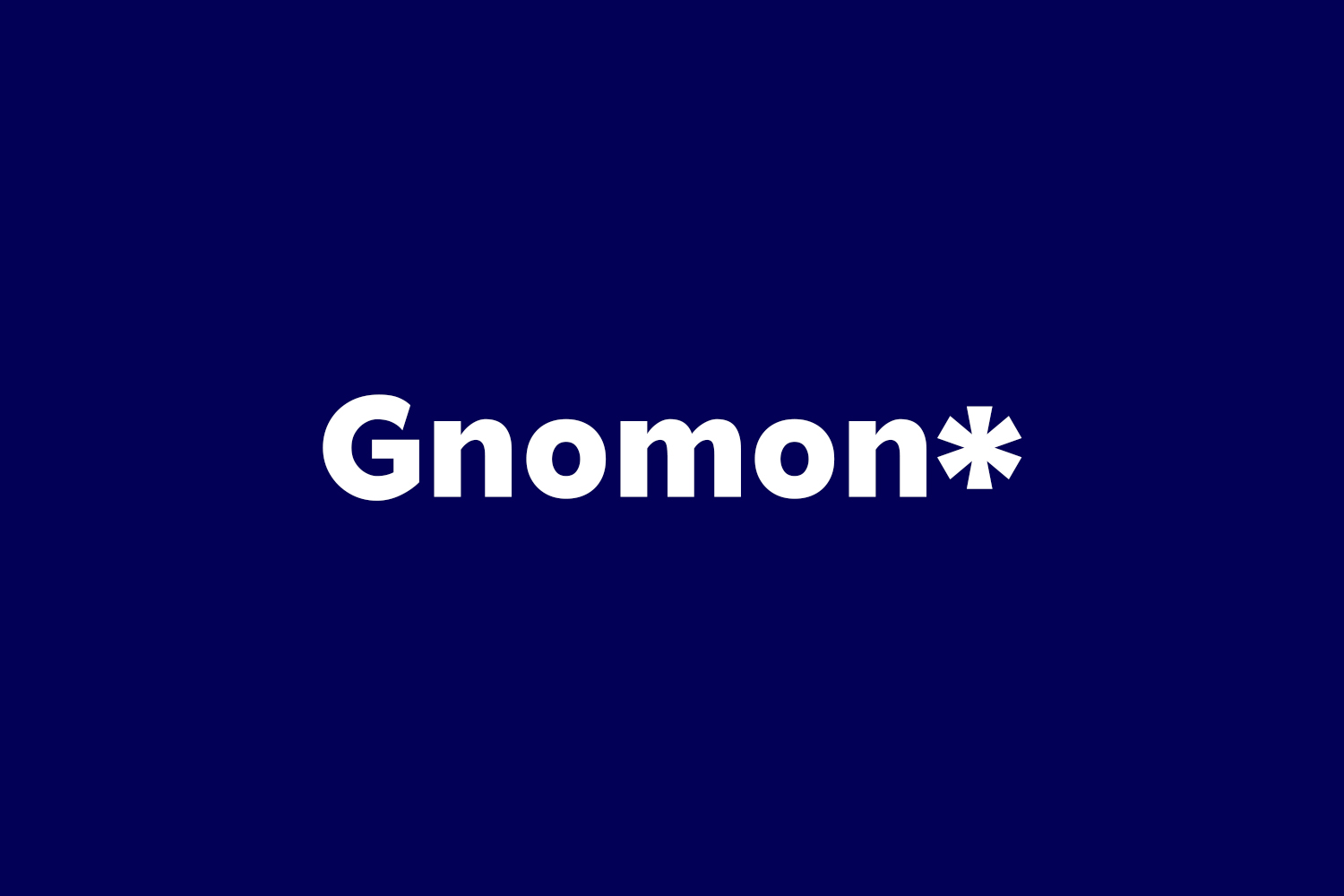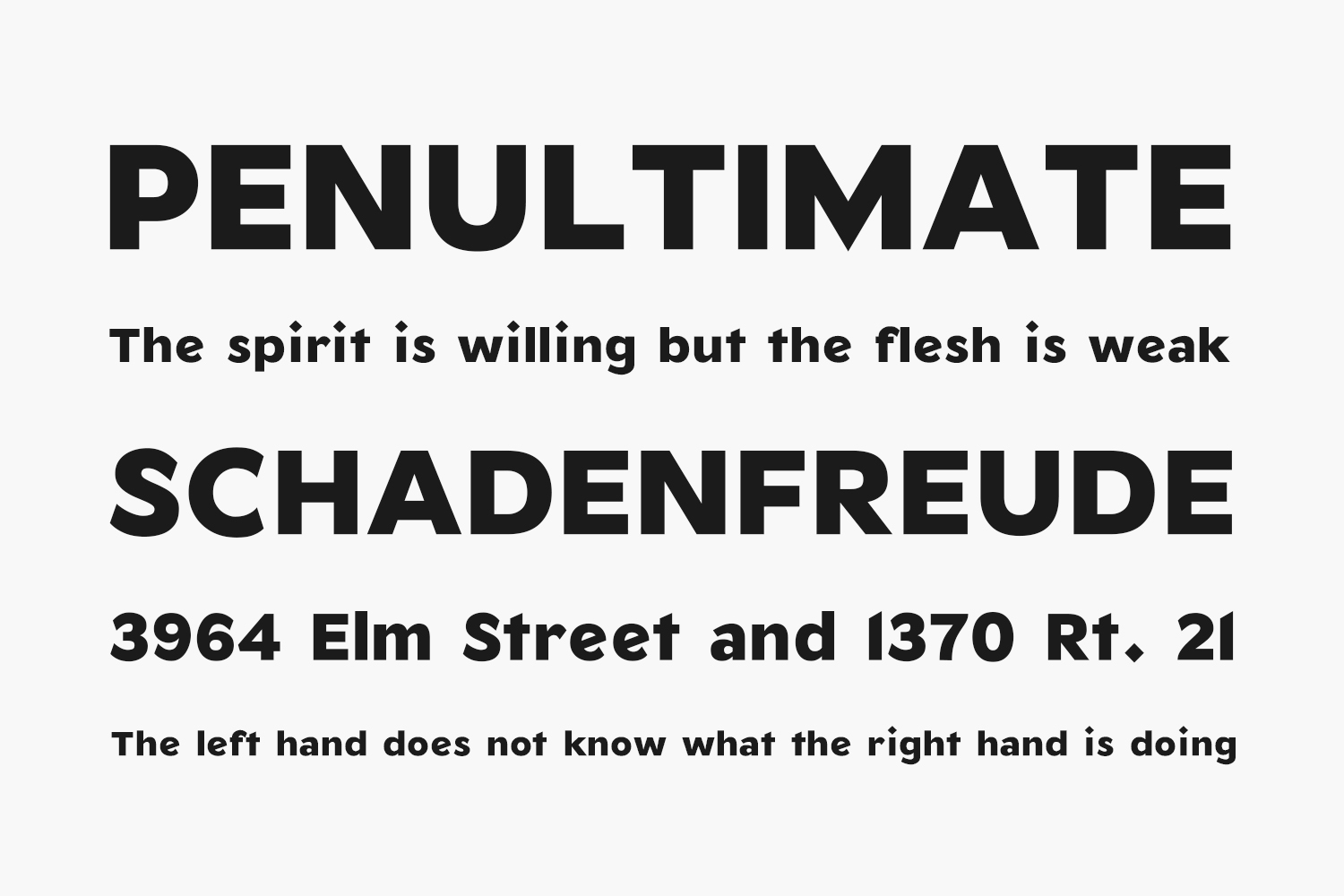
Gnomon* Free Font Family is a display font inspired by the bold and striking letterforms of American World War Two Posters. It has only one weight and is ideal for standout headlines with retro vibes. Although limited in design and application possibilities, Gnomon* is a bold attempt at something new that stands on its own.
Gnomon* Simple is meant to be layered behind the Foreground weight and will change location as time changes.